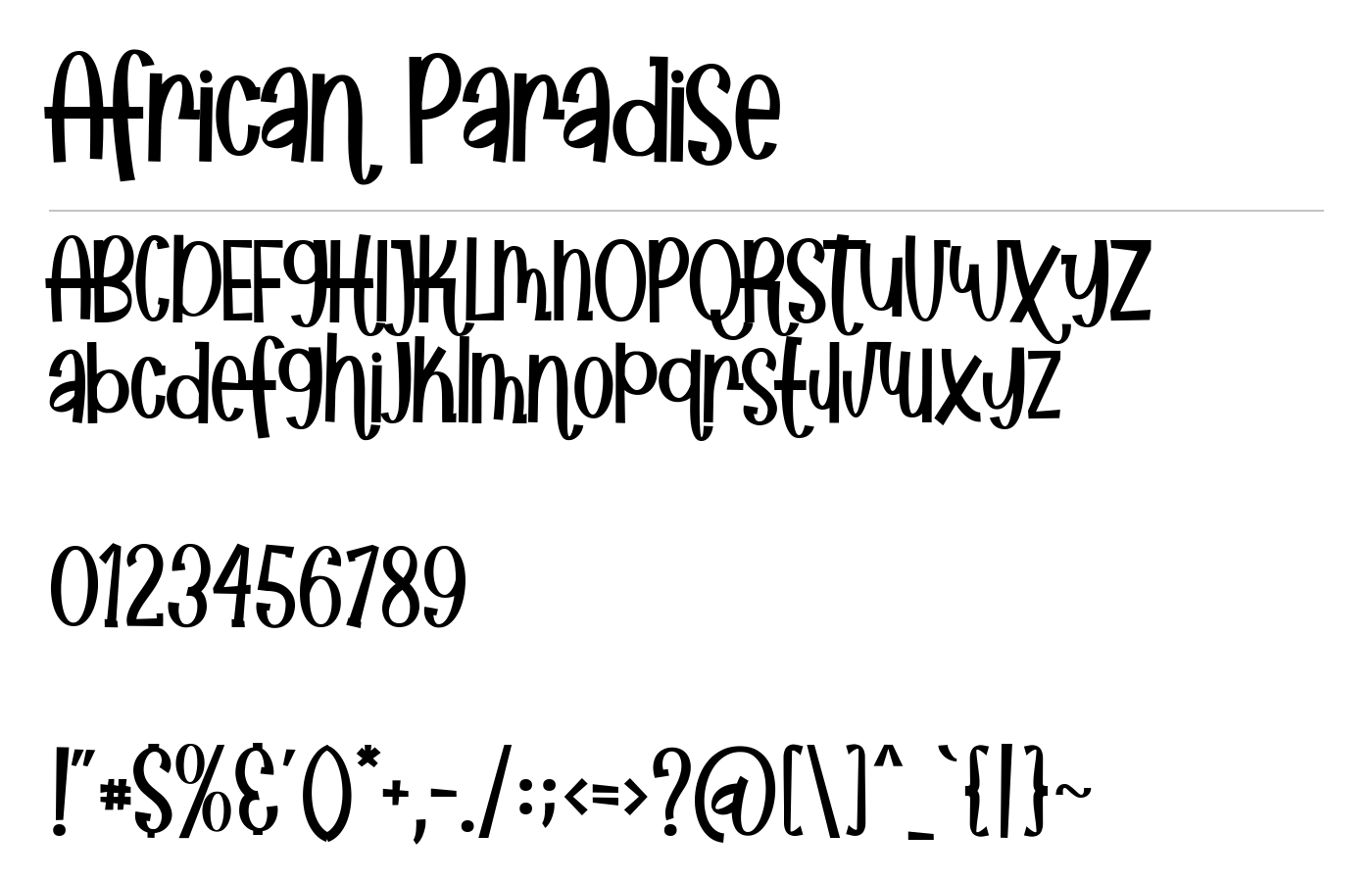
African Paradise is a playful and quirky sans serif typeface with tall, narrow letterforms and lively, uneven strokes that give it a hand-crafted feel. Its whimsical personality and slightly exaggerated shapes make it ideal for creative projects, children’s designs, or branding that seeks a fun and approachable vibe. This font works best in headlines and logos where its distinctive style can stand out and capture attention.
African Paradise Font
About African Paradise Font
| Font family | African Paradise Font |
| Designer | Gumilar Pratama Adiatna |